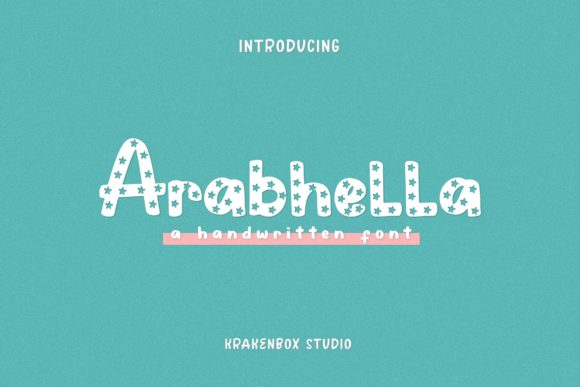
Immerse yourself in the enchanting realm of literature with Arabhella, the typeface that ignites the imagination and elevates your fiction tales to new heights of wonder. Crafted by the ingenious Krakenboxstudio, Arabhella is not just a font; it's a gateway to a world of captivating narratives, evoking emotions, and creating a visual feast for the eyes.
Let your characters dance across the page with Arabhella's playful and childish charm. Its quirky and distinctive curves add a touch of whimsy to your prose, capturing the essence of your fantastical characters and their enchanting journeys. From the mischievous sprites to the wise wizards, Arabhella brings your fictional world to life, captivating readers from the very first page.
Step into the shoes of your protagonists and let Arabhella guide you through their adventures. Its unique letterforms, reminiscent of handwritten notes and vintage manuscripts, create an immersive experience that transports readers into the heart of your story. Feel the thrill of the hero's quest, the romance of star-crossed lovers, and the mystery of uncharted lands, all brought to life by the magic of Arabhella.